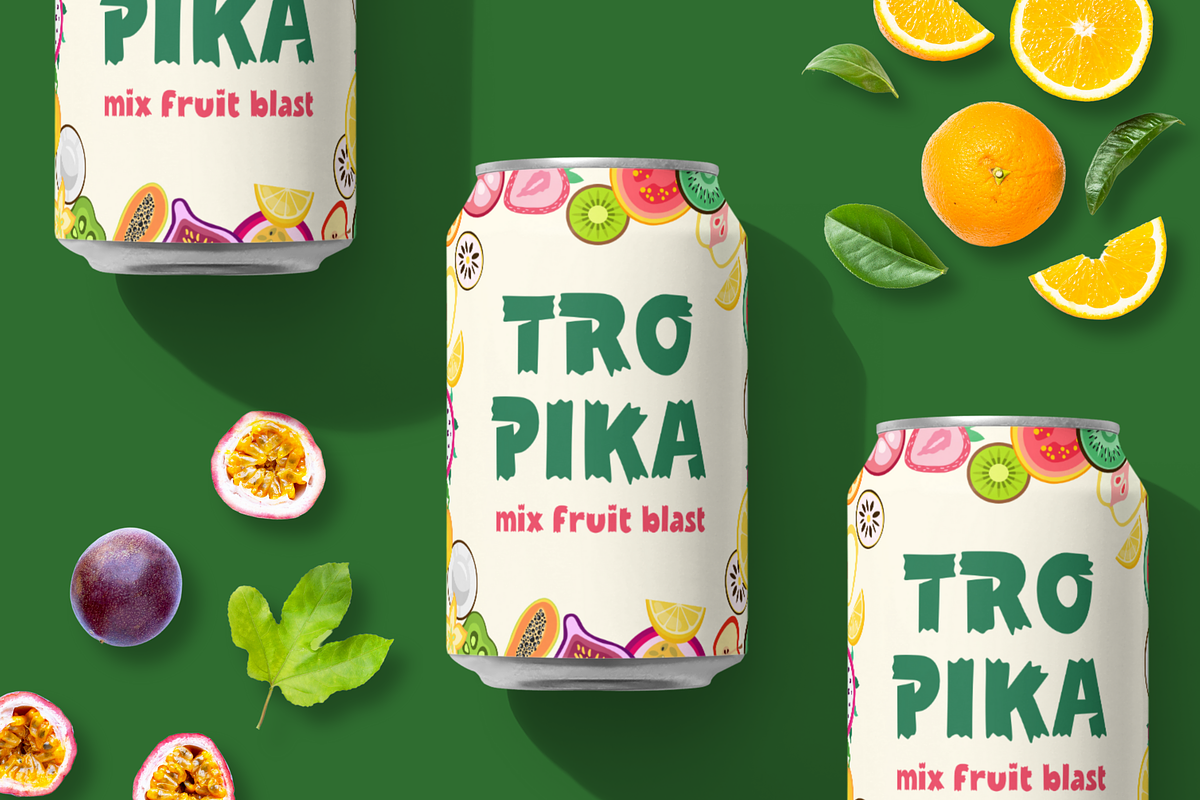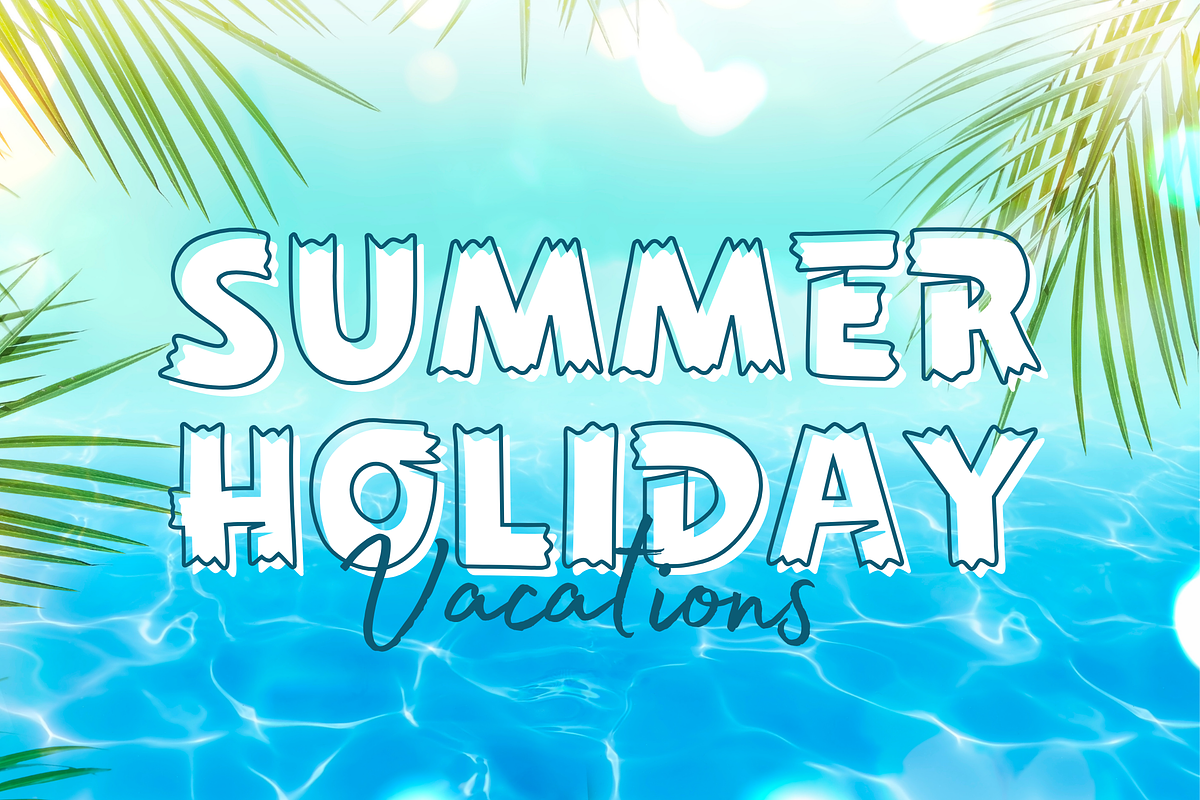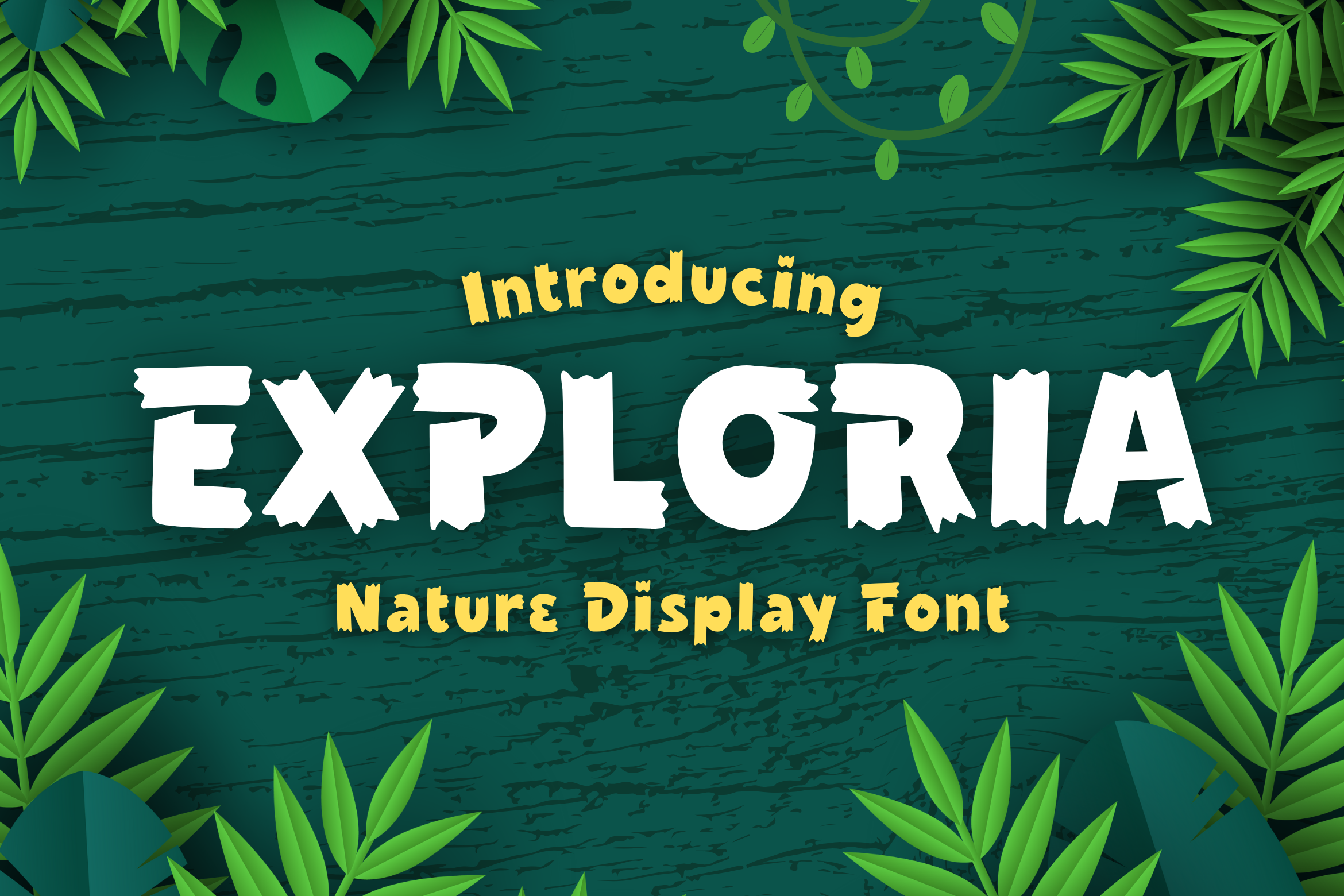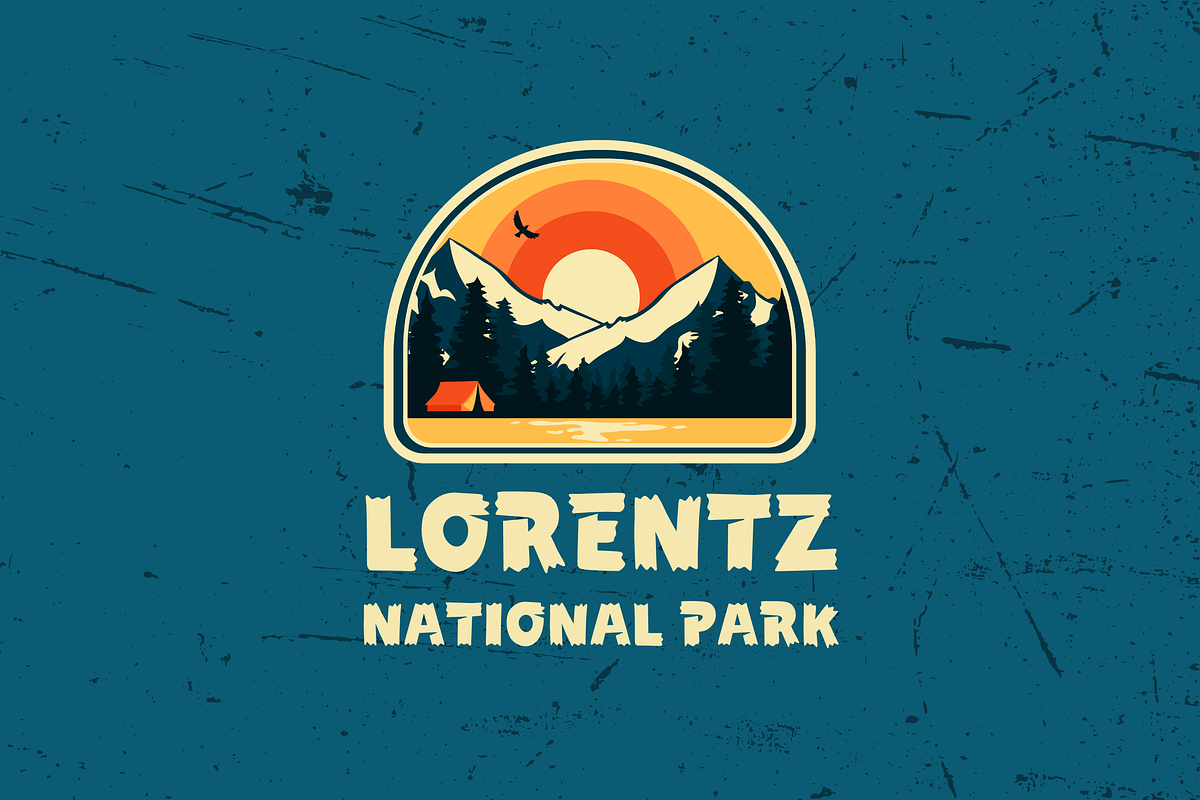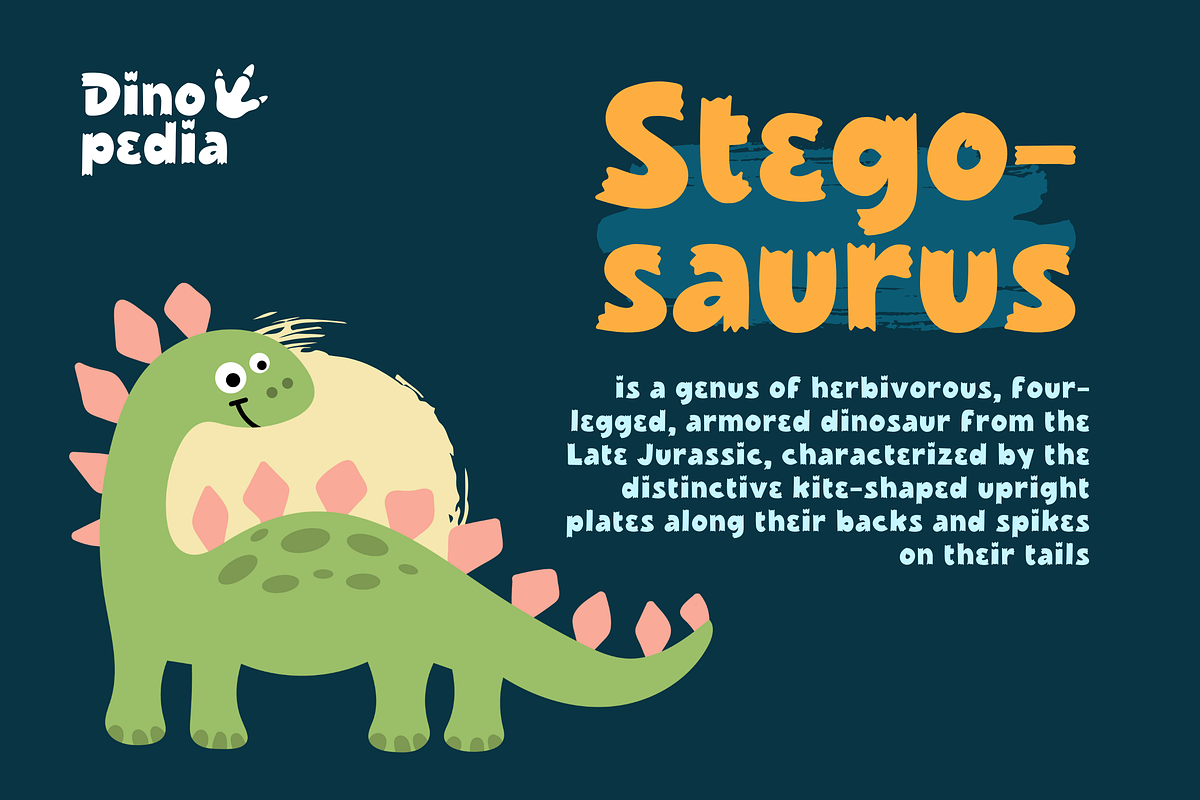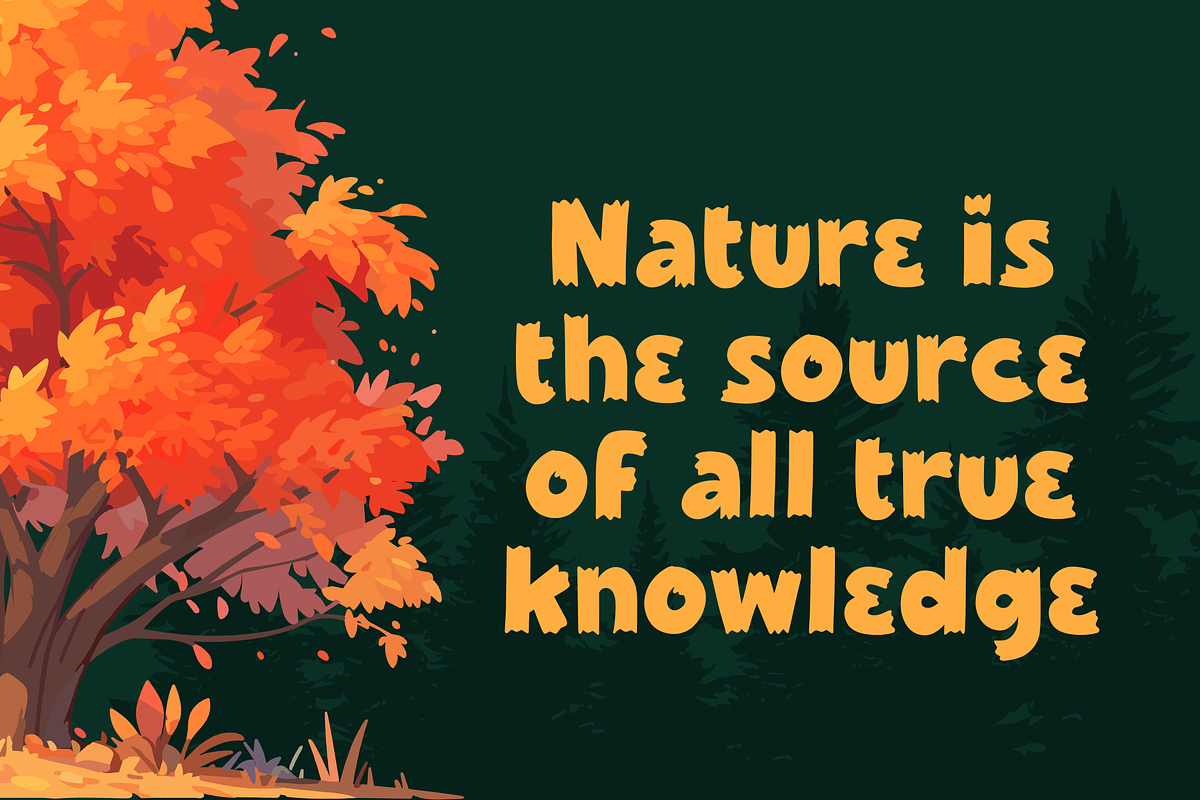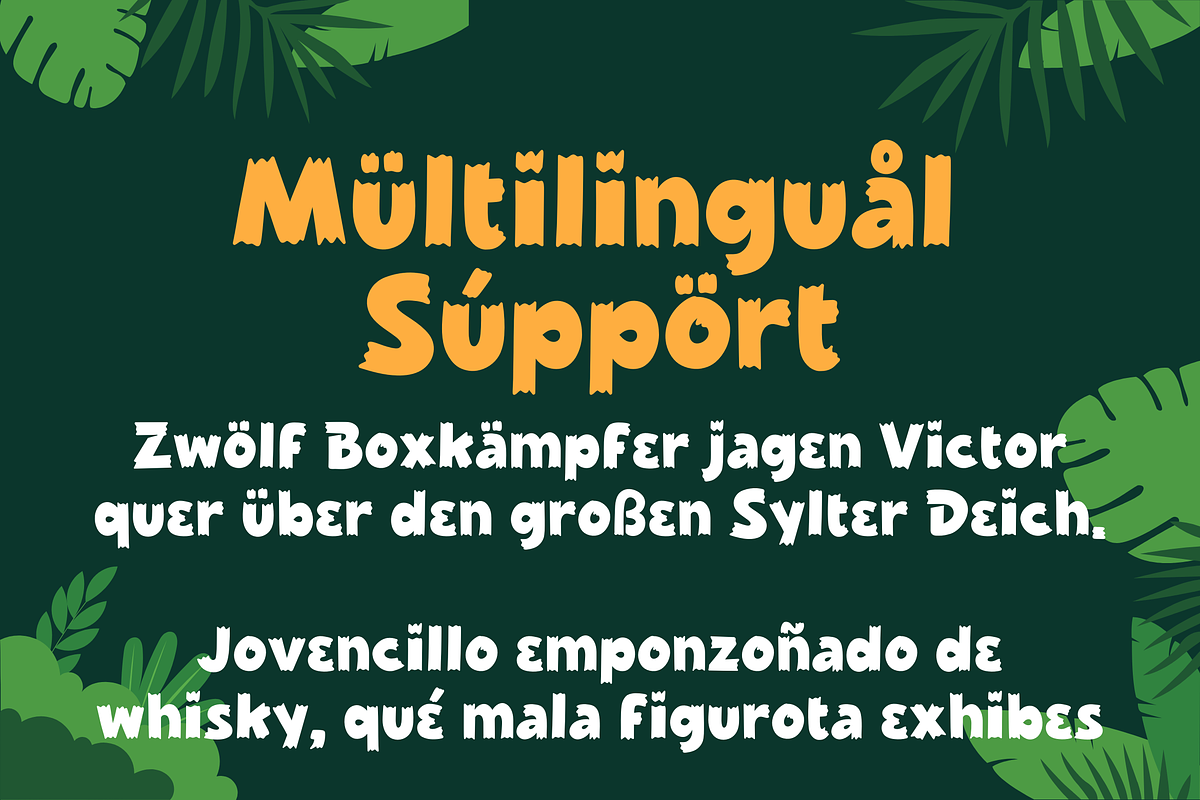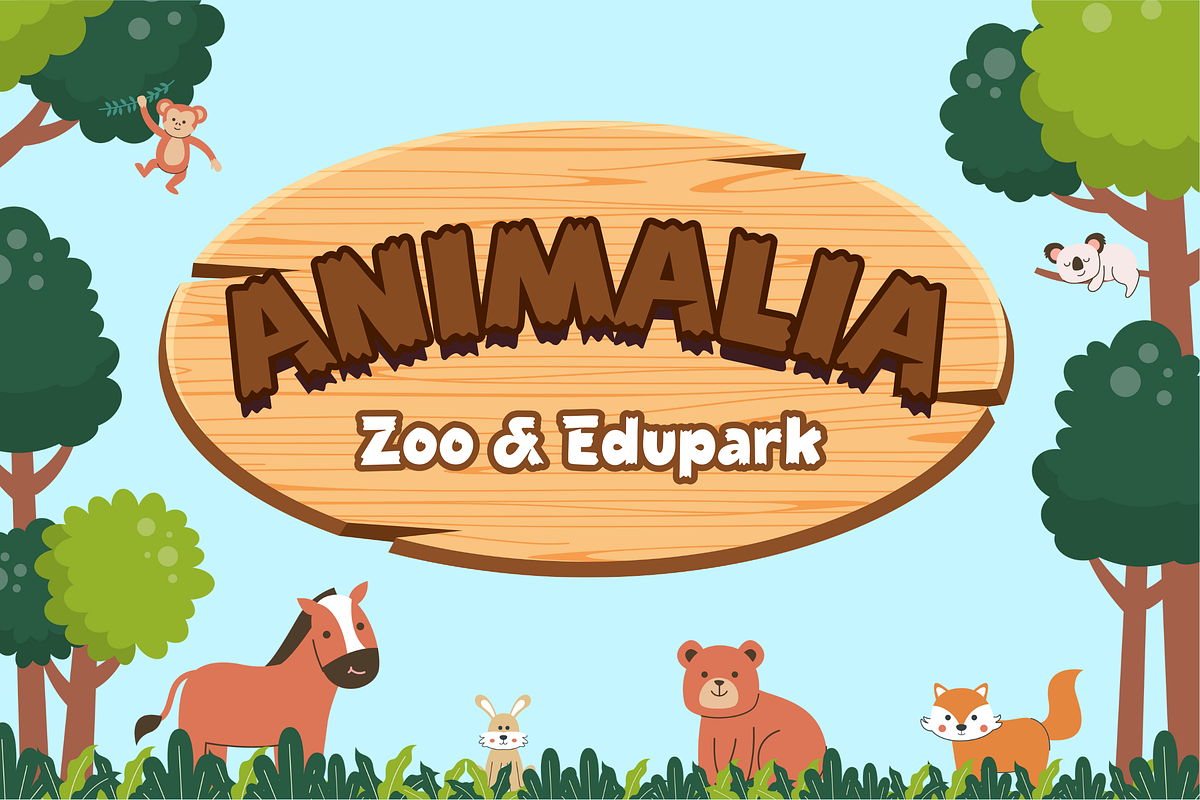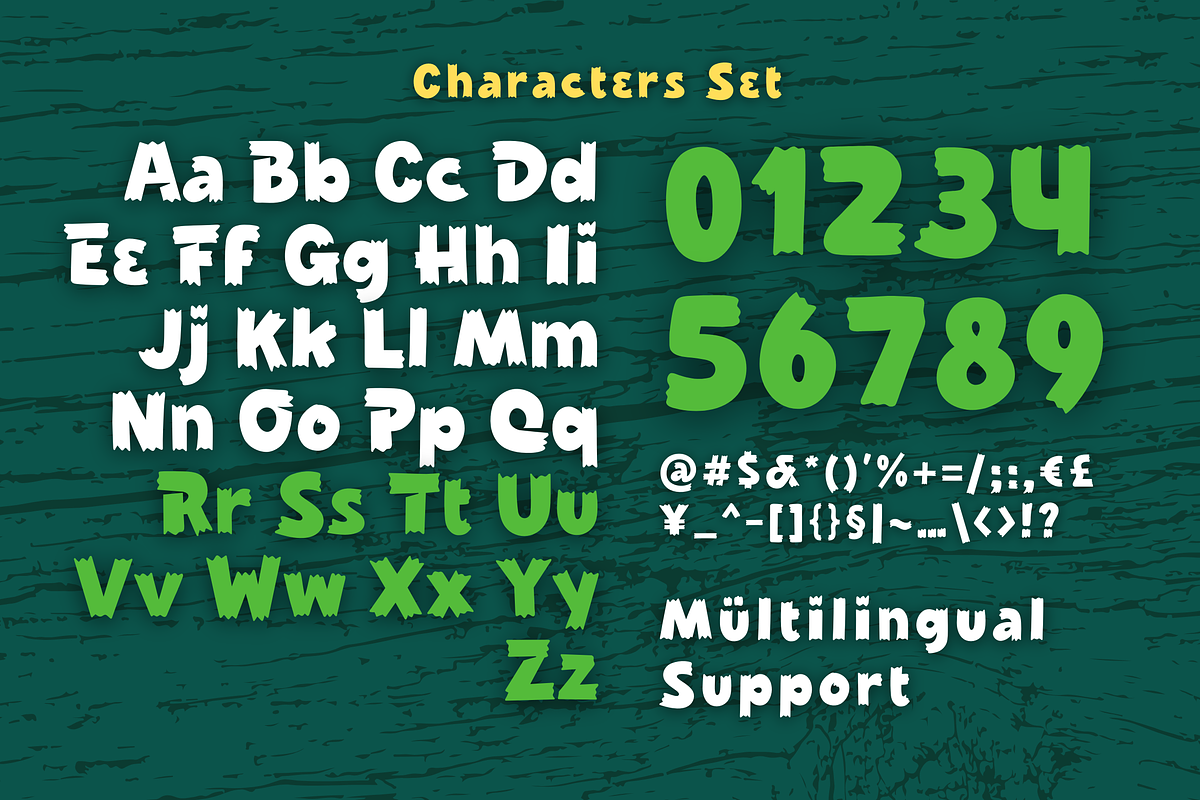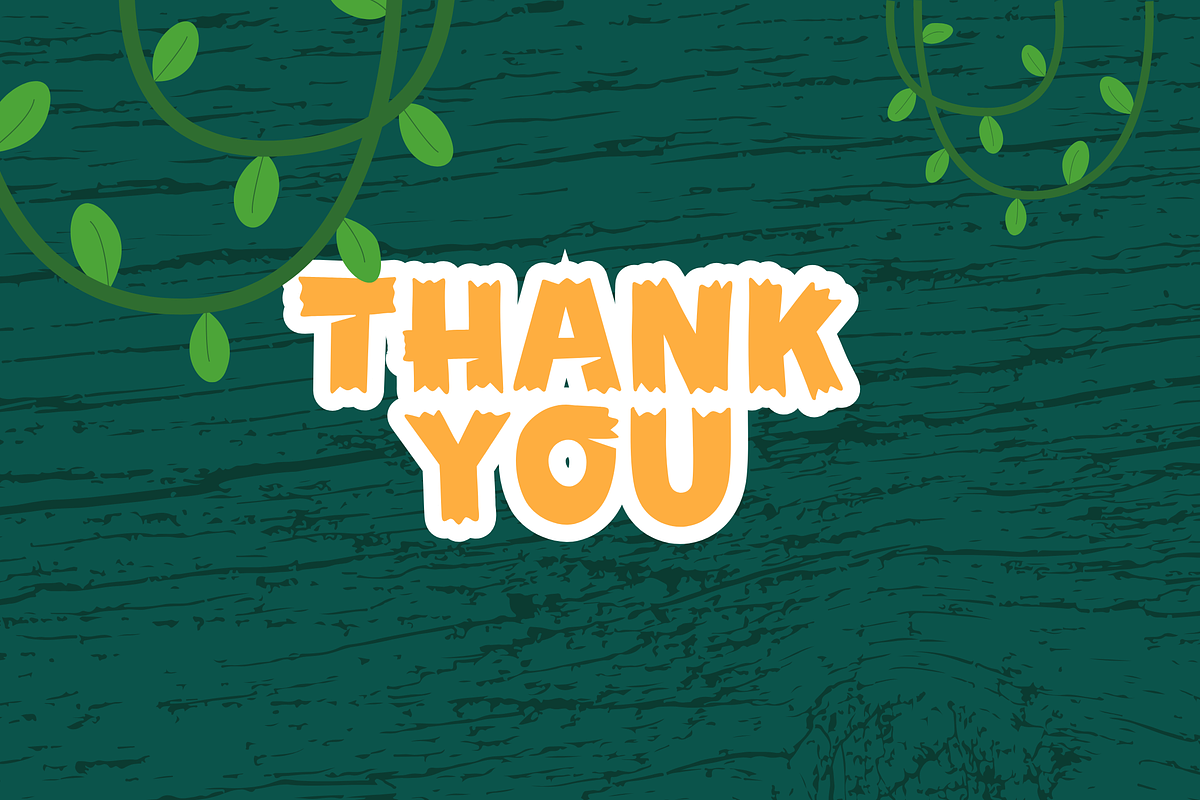
Exploria Font
Introducing Exploria – a captivating font that seamlessly blends the rustic warmth of wood with the untamed spirit of the jungle. With its organic lines and earthy textures, Exploria transports your typography into a realm where nature's essence meets modern design. Embrace the wilderness in every letter, as Exploria weaves a tale of adventurous serifs and wild, flowing characters. Let your words embark on a journey through the lush typographic landscape of Exploria – where wood meets jungle, and creativity knows no bounds
- Numeral and punctuation